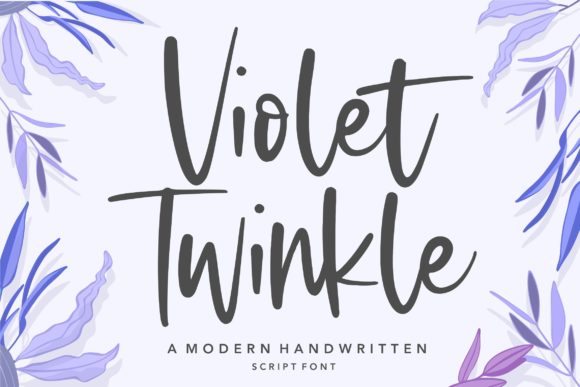
Unleash the allure of Violet Twinkle Font, an exquisitely handwritten creation that whispers grace and enchantment into your digital designs. Bathed in an aura of timeless beauty, these letters, meticulously curated by Balpirick, weave a captivating tapestry of style and artistry. Immerse yourself in the artistry of Violet Twinkle, where each stroke, each curl, and each flourish conspires to cast a spell of visual magic. It is the perfect font for your most cherished projects, those designs that hold a special place in your creative heart.
Experience the majesty of Violet Twinkle, a font that emanates confidence, legibility, and a dash of whimsy. With its elegant touch, this font lends a sense of refinement and professionalism to your designs, evoking a sense of timeless artistry. It is the ideal font for websites, social media posts, invitations, and any other medium that demands a touch of visual enchantment.
Allow your imagination to take flight as you explore the versatility and grace of Violet Twinkle Font. It is a font that knows no bounds, a font that embraces an array of styles, from the classic to the contemporary, and from the formal to the whimsical. Its versatility knows no limits, allowing you to imbue your designs with a touch of whimsy, a burst of boldness, or a dash of timeless charm.
With its meticulous attention to detail and its adaptability to a variety of uses, Violet Twinkle Font promises to elevate your designs to new heights. Prepare to be captivated by its allure, astounded by its versatility, and enthralled by its ability to transform the ordinary into the extraordinary.